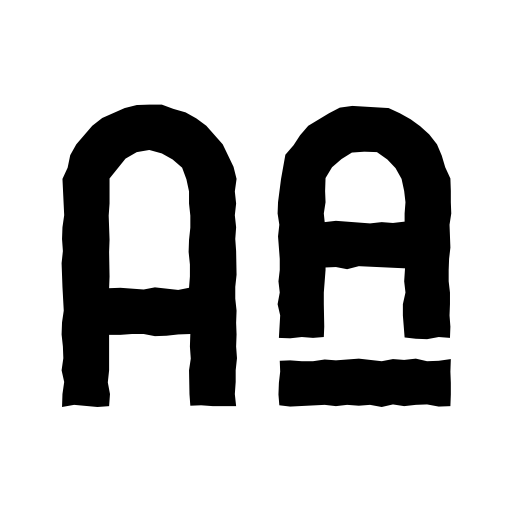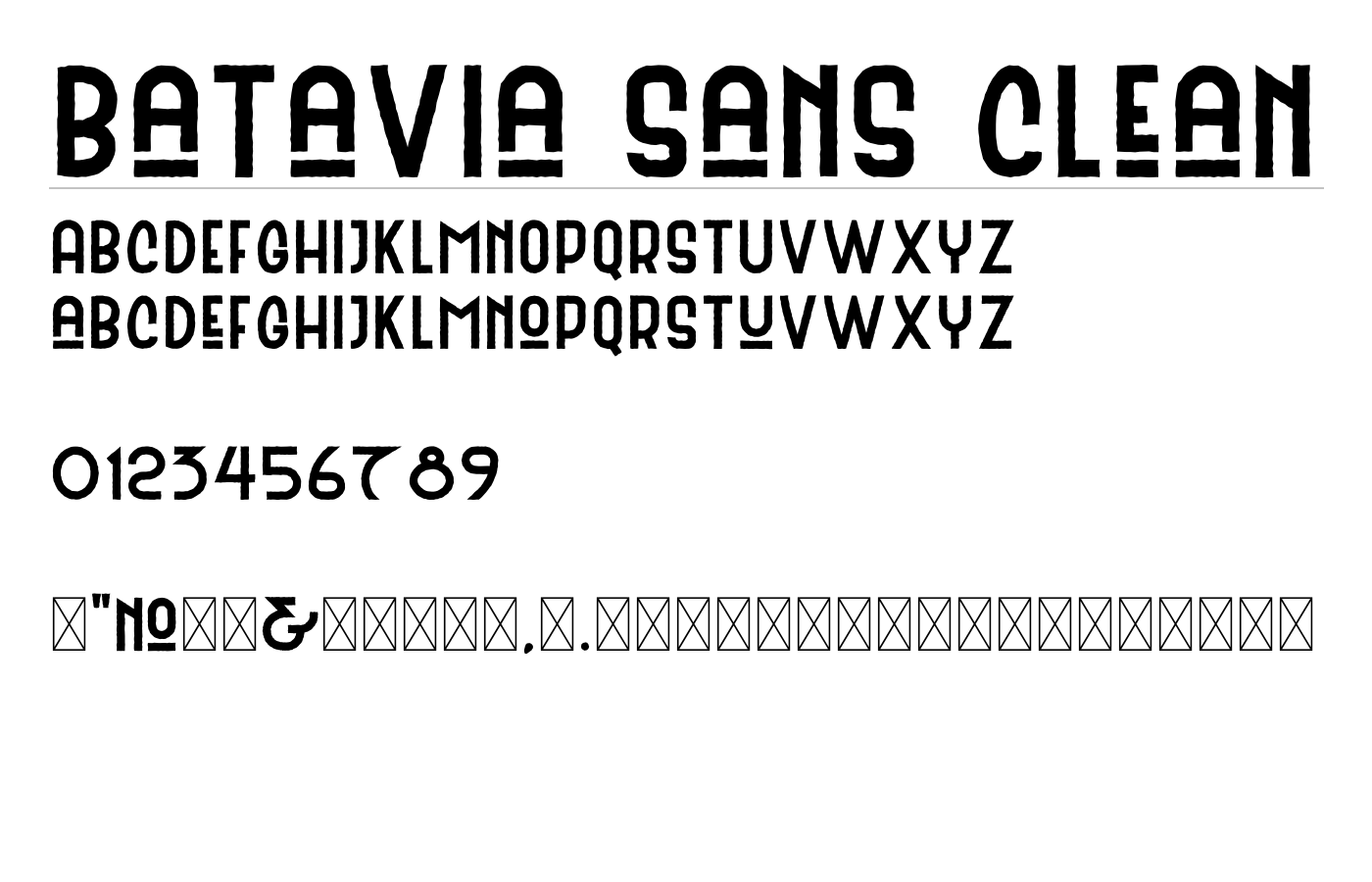
Batavia Sans Clean is a distinctive sans serif font characterized by its tall, narrow letterforms and playful irregularities, giving it a handcrafted, vintage charm. With its medium weight, quirky underlined elements, and unique shapes, it conveys a friendly yet bold personality, making it ideal for eye-catching headlines, branding, and creative projects seeking an authentic and unconventional look. This font works particularly well in logos, posters, and editorial designs where a strong, memorable style is desired.
Batavia Sans Clean Font
About Batavia Sans Clean Font
| Font family | Batavia Sans Clean Font |
| Designer | Abdurrahman Hanif |